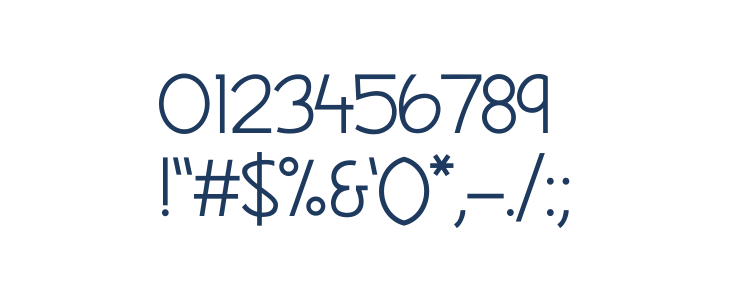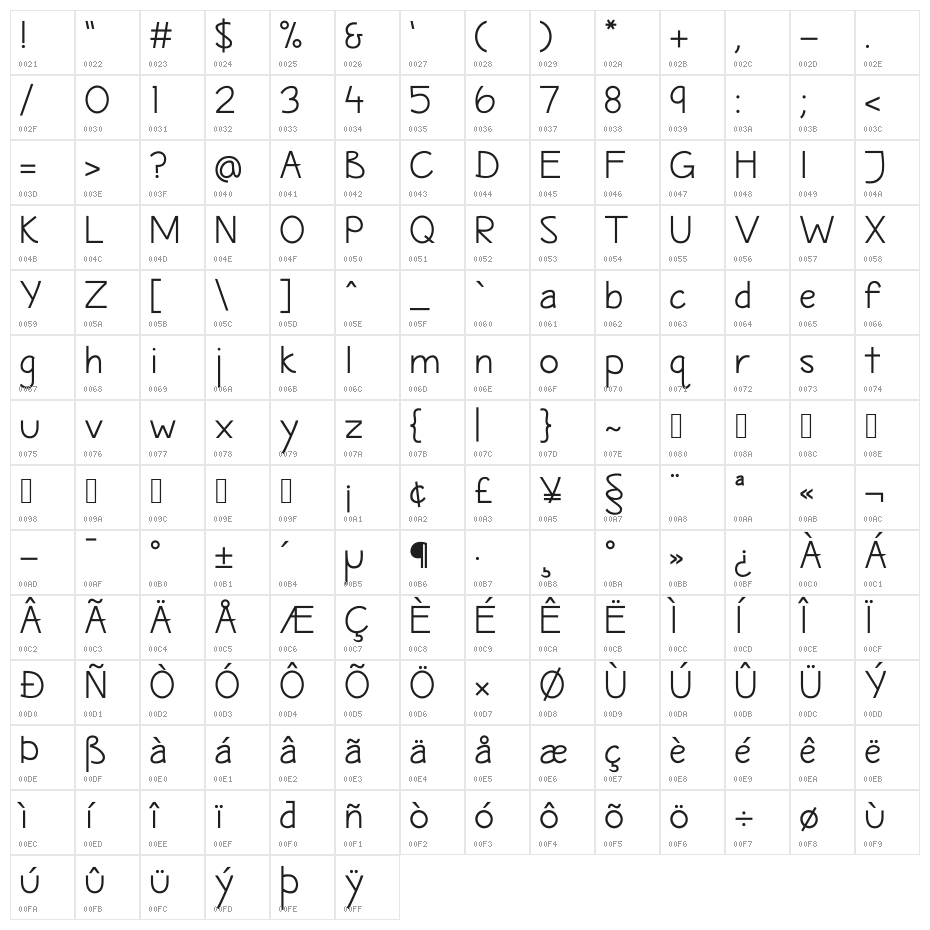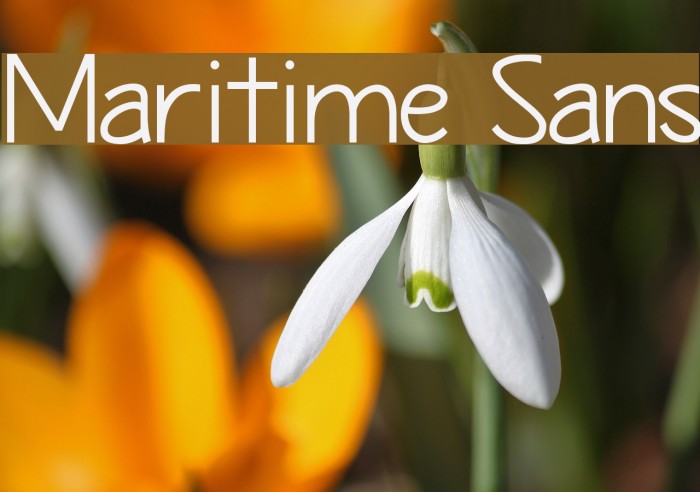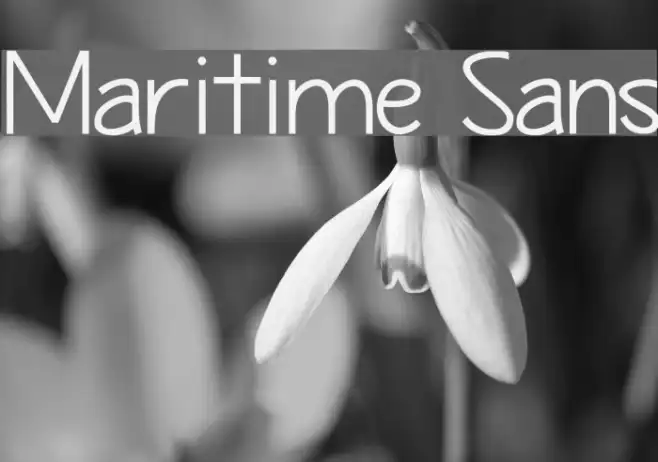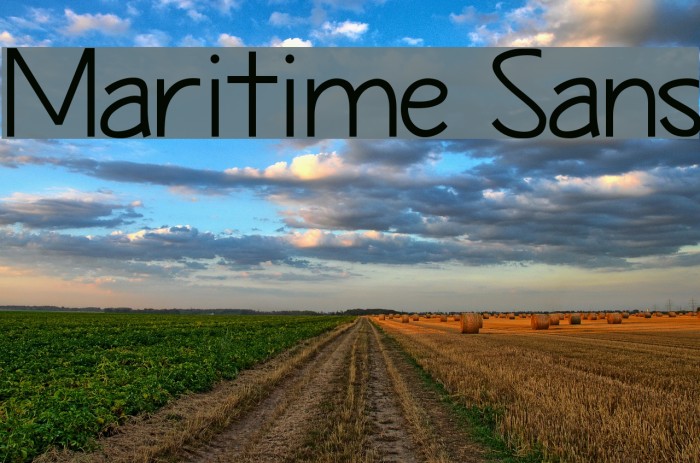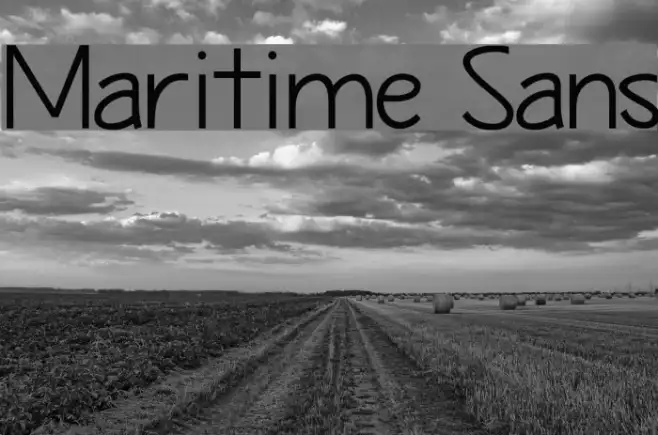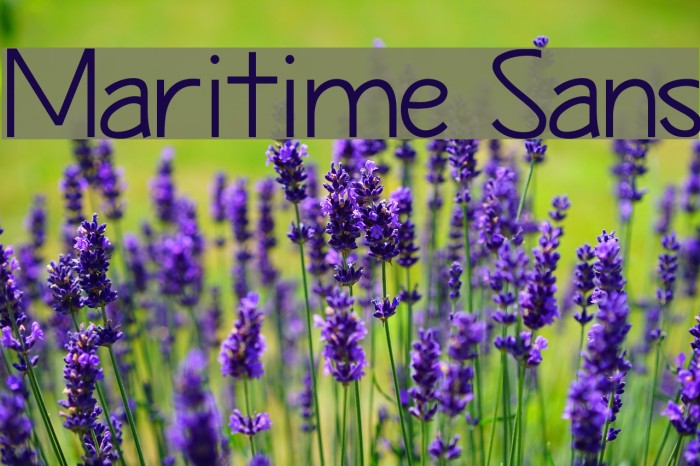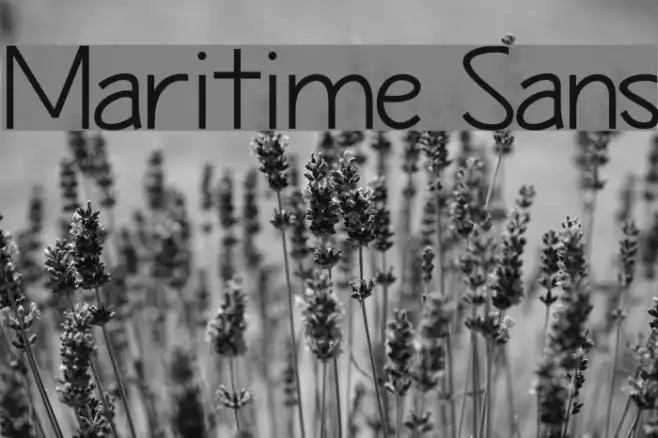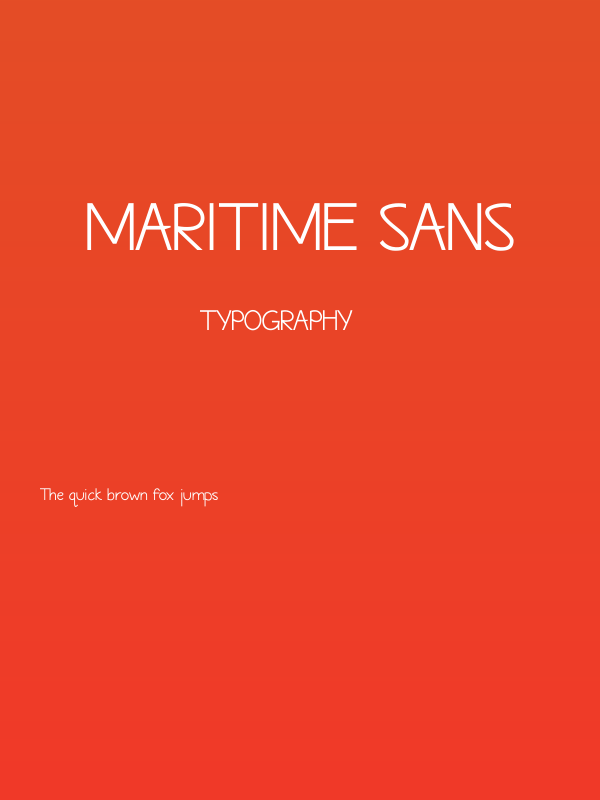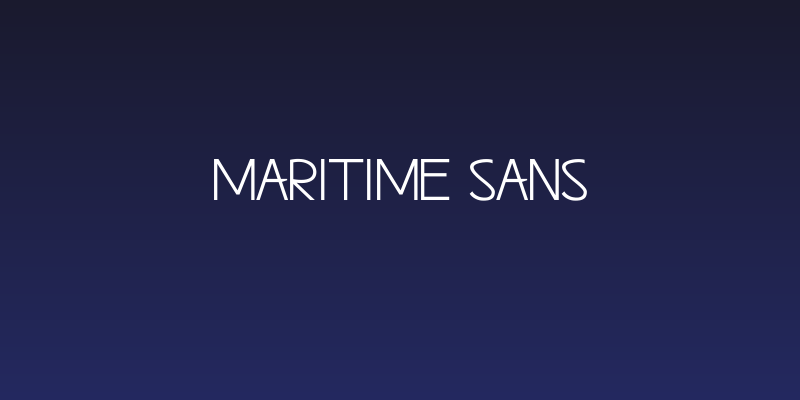
Maritime Sans Font
Maritime Sans Description
This font features a clean and modern sans-serif design with a geometric structure. The characters are uniform in width, providing a balanced and harmonious appearance. The uppercase letters are bold and assertive, while the lowercase letters maintain a friendly and approachable feel. The numerals are clear and easy to read, making them suitable for various applications. The special characters are well-integrated, maintaining the overall aesthetic of the font. This font's simplicity and clarity make it versatile for a wide range of design projects.